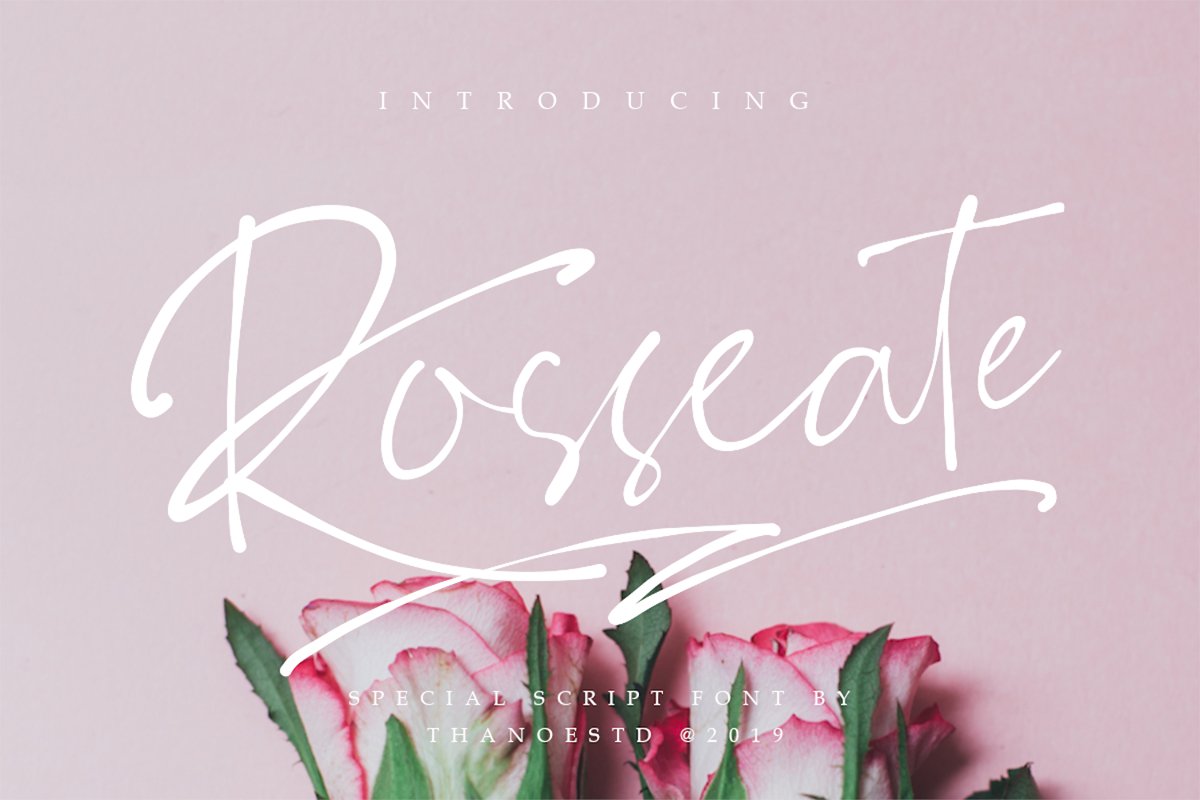
Rosseate
Rosseate is an equally stylish and authentic script that will add a special feel to any design idea. Get inspired by its bold vibe!
This font is perfect for quotes, shirt designs, blogs, invitations and more!